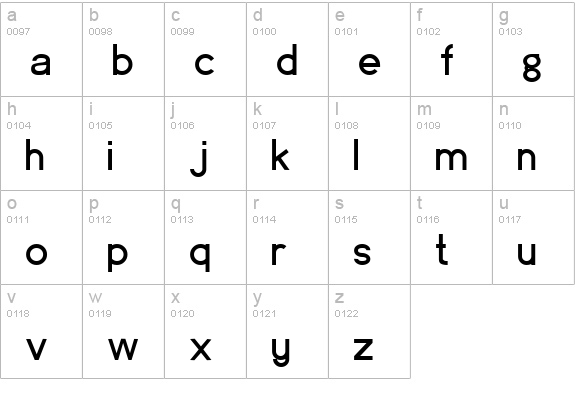
Brassfield Regular Font Details
Brassfield Regular is the standard, neutral variant in the Brassfield typeface family \xE2\x80\x94 well suited to general body text, paragraphs, and standard typographic work.
Brassfield Regular is a stylish and versatile font that exudes elegance and sophistication. Its clean lines and classic design make it perfect for a wide range of projects, from branding to editorial design. The font features a timeless appeal that will elevate any text it is applied to. The best part? Brassfield Regular is available for free download at FontsMarket.com. You can easily access this high-quality font and use it in your projects without any cost. Whether you are a designer looking for a new go-to typeface or a business owner wanting to enhance your branding, Brassfield Regular is a fantastic choice that won't break the bank. Don't miss out on the opportunity to add Brassfield Regular to your font collection. Download it for free today and experience the beauty and versatility of this stunning typeface.